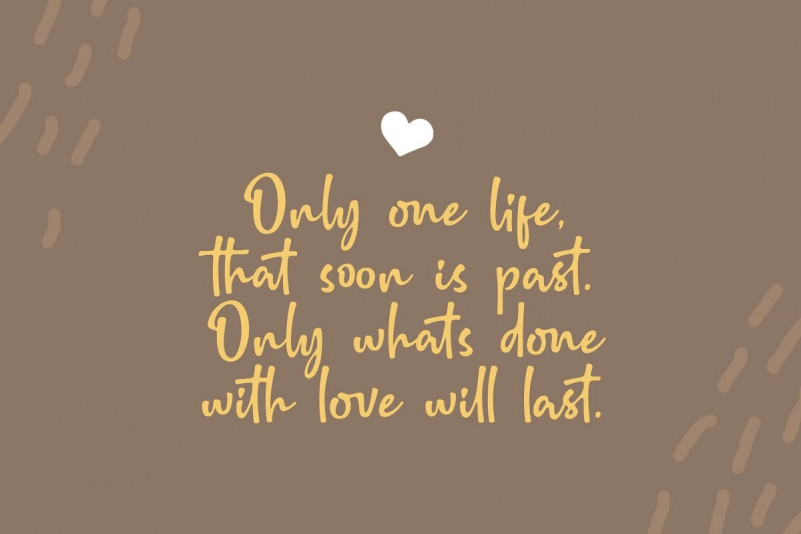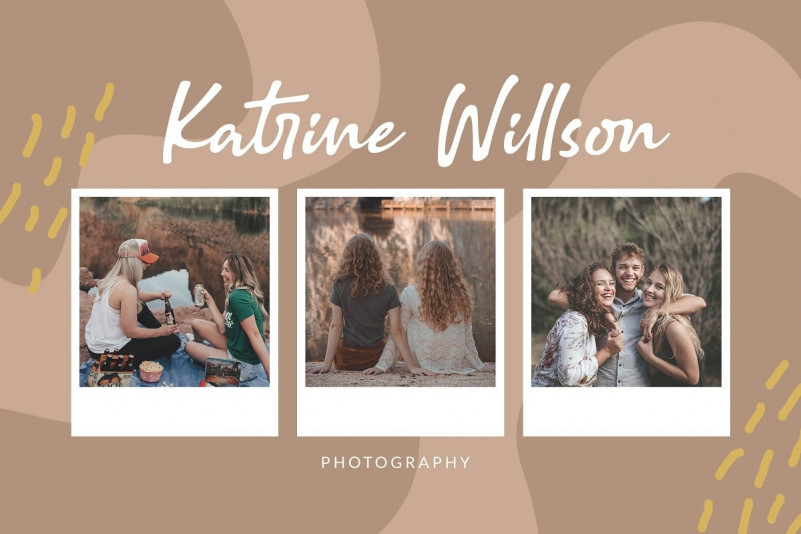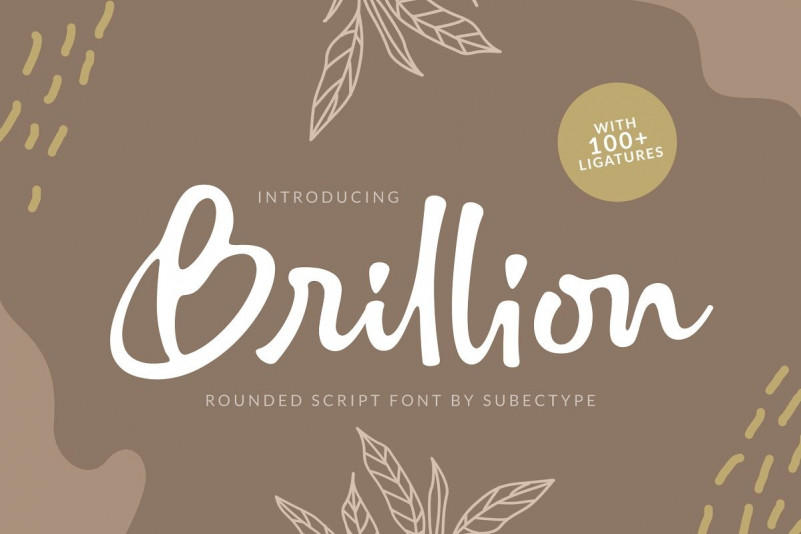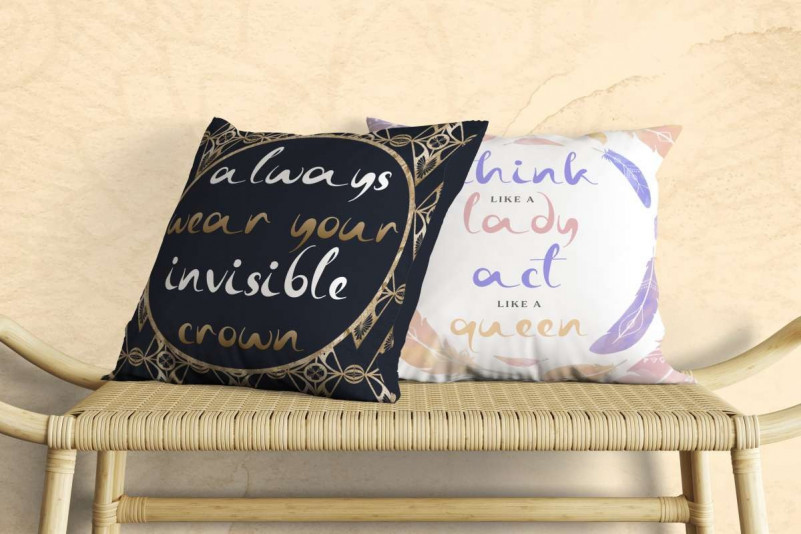
Brillion Handwritten Font
Brillion Handwritten Font is a casual handwritten font, this font come with rounded style. perfect for your personal branding and any awesome project, such as : logos, invitations, stationery, wedding designs, social media posts, advertisements, product packaging, product designs, labels, photography, watermarks, special events and much more !